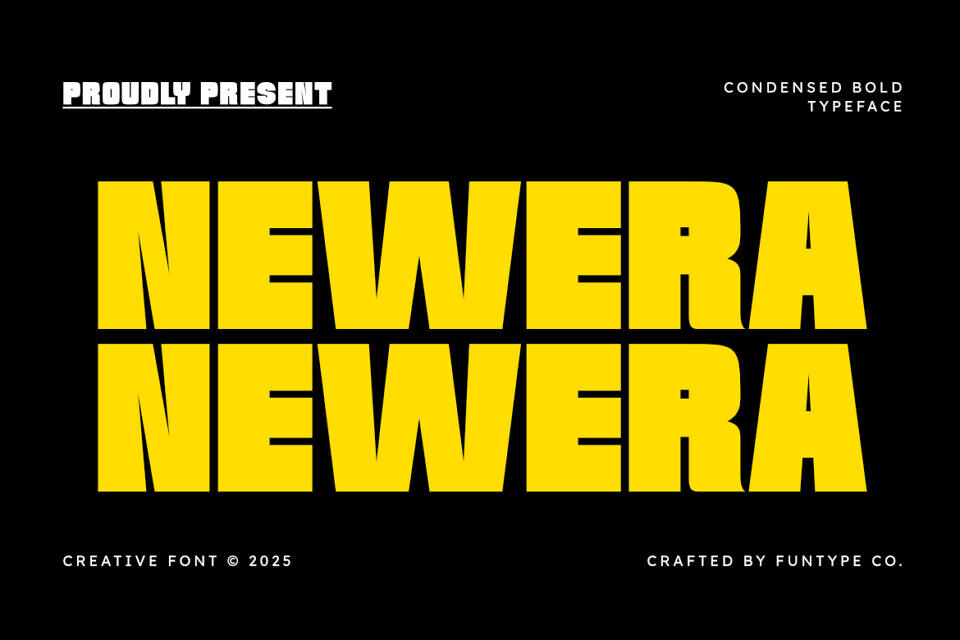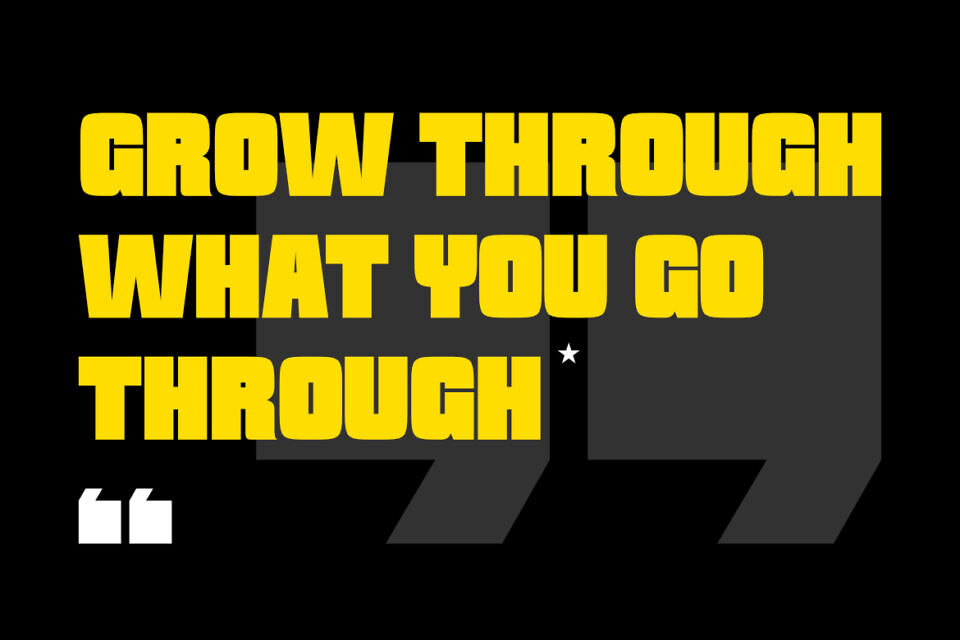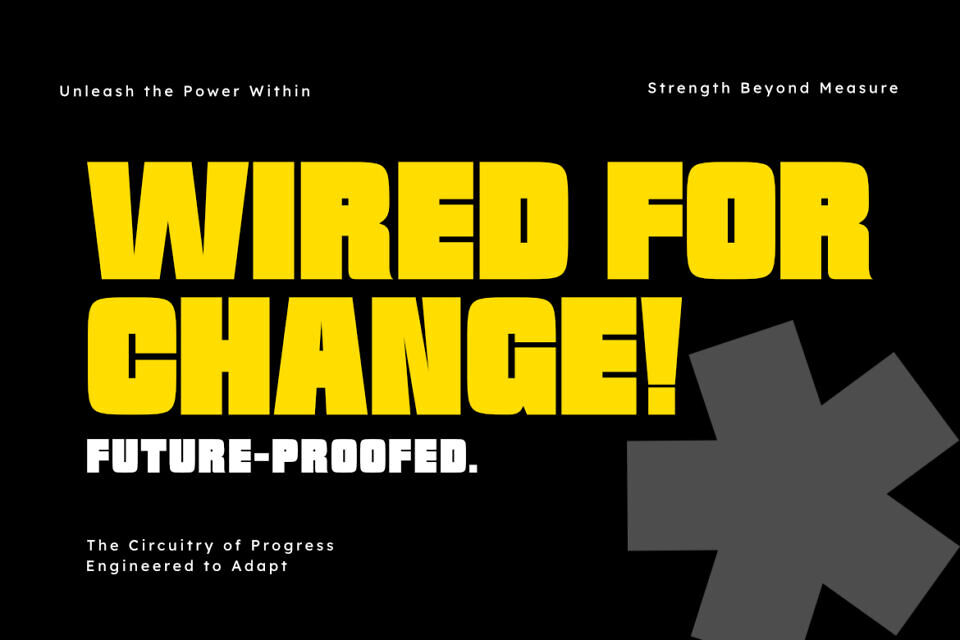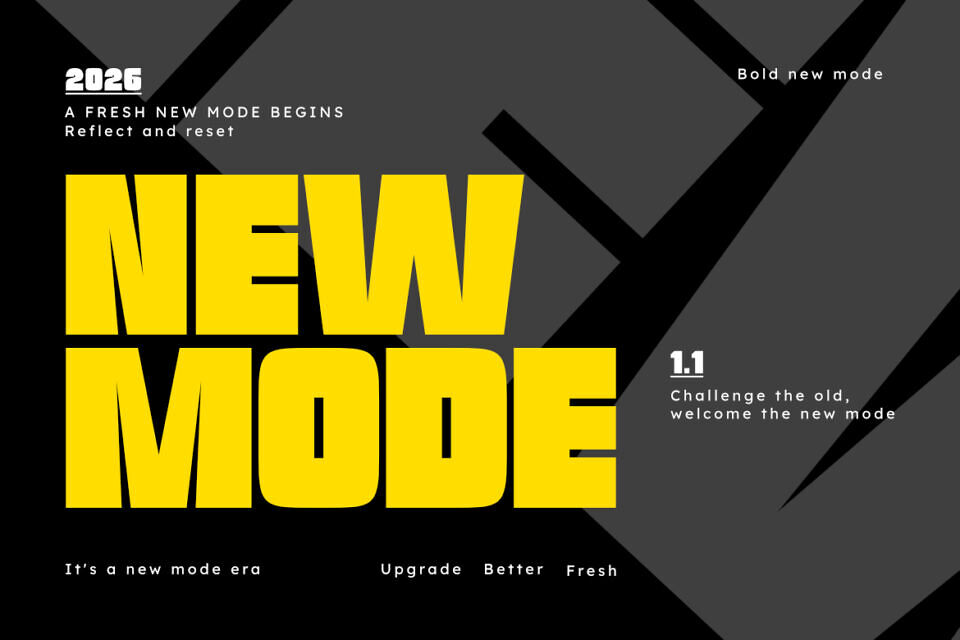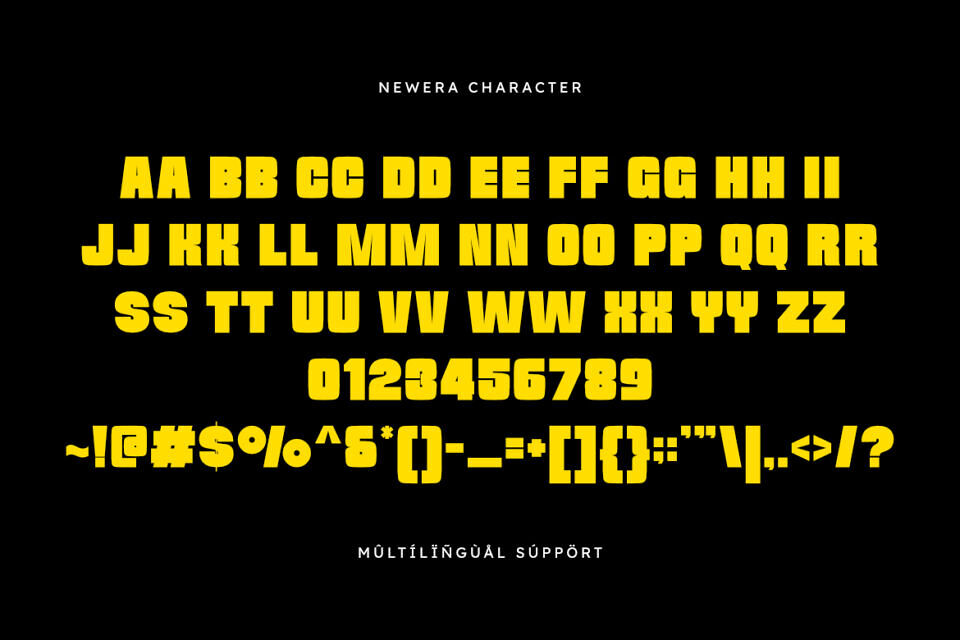
Newera is a dominant, loud condensed bold creative typeface designed for maximum impact and a powerful statement. Its thick, sturdy construction and tight letter spacing give it an aggressive, modern, and unmissable presence, making it the perfect font for dynamic headlines, urban branding, sports graphics, music posters, and any design requiring a strong, contemporary voice.